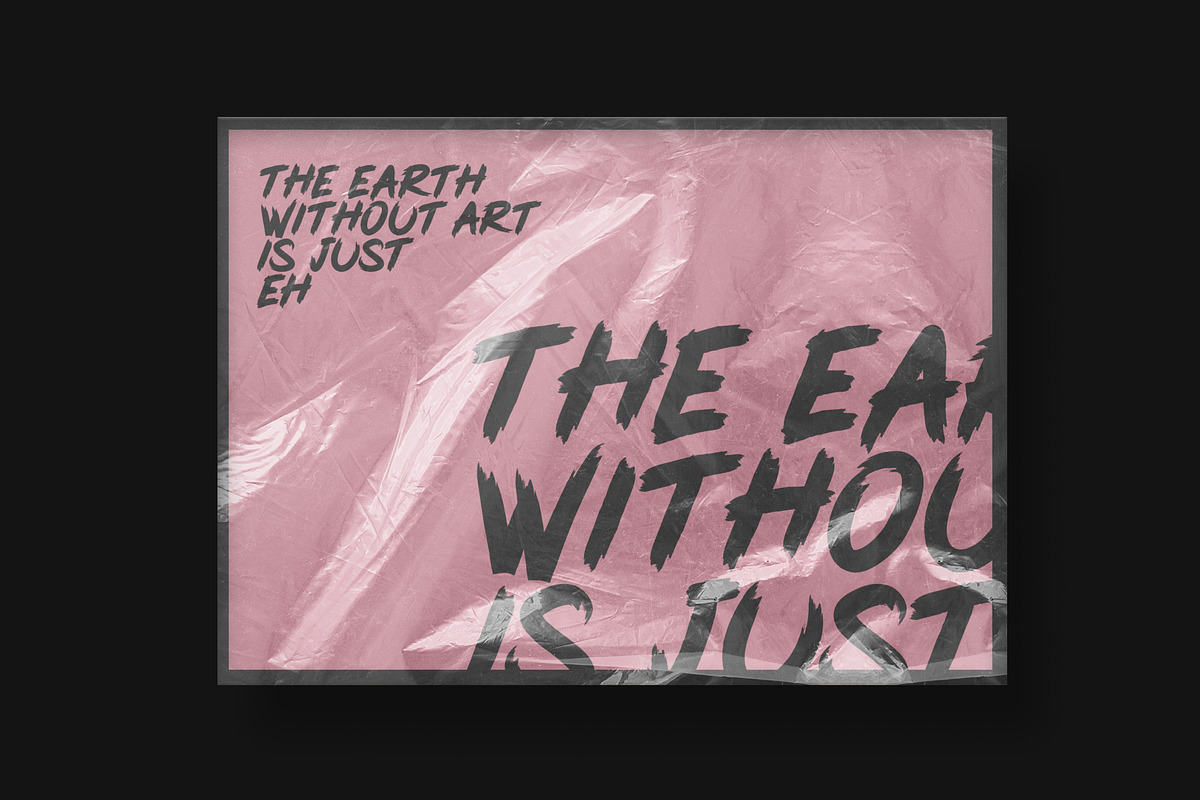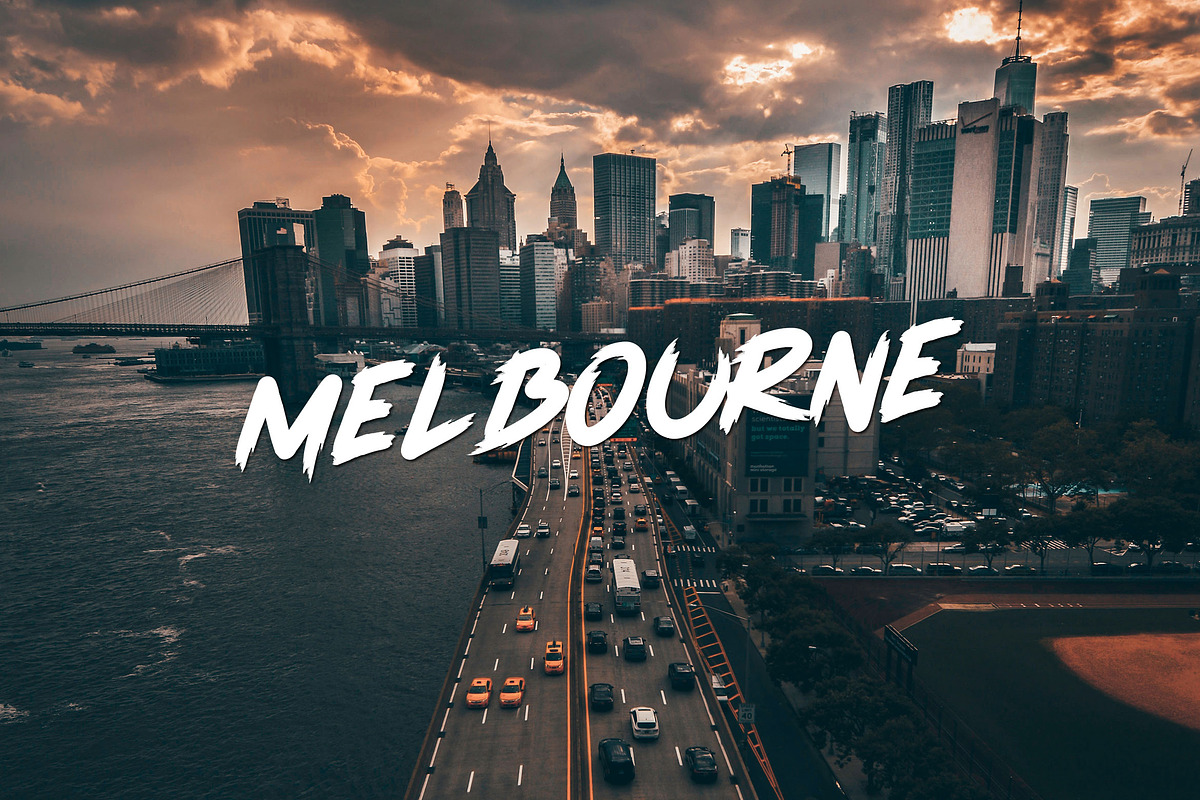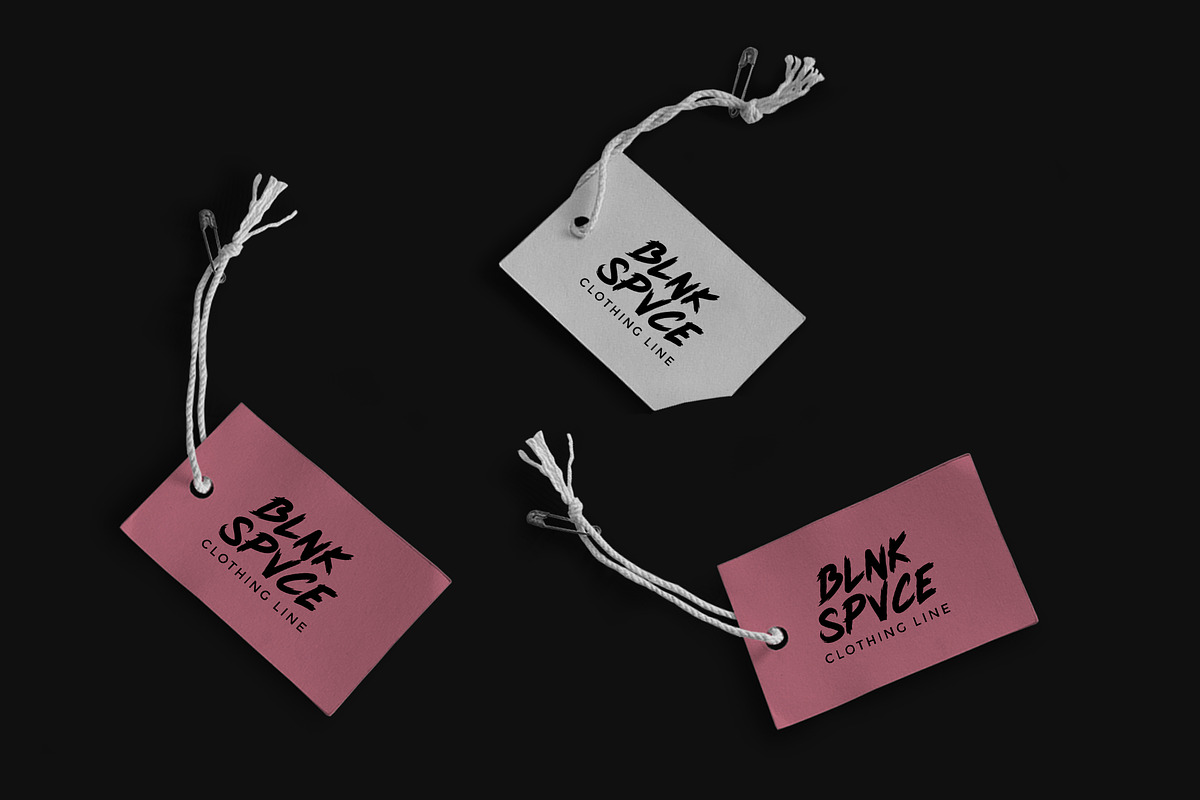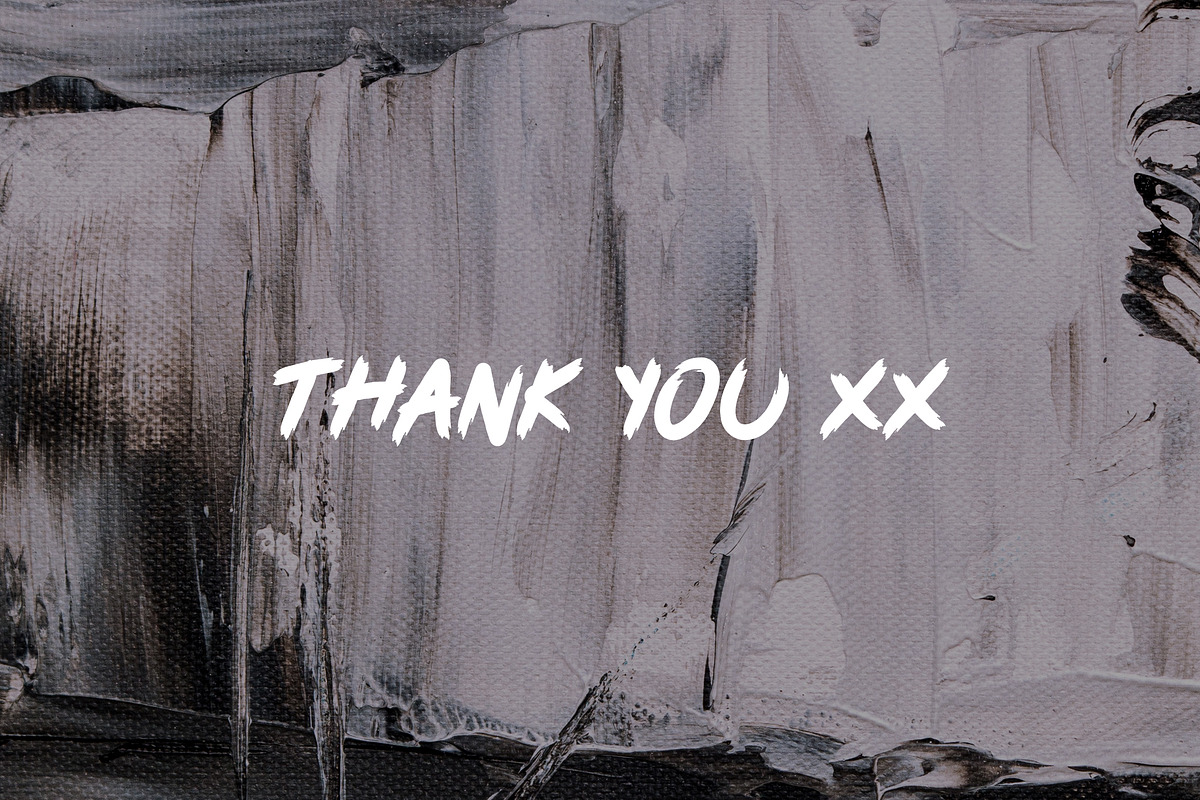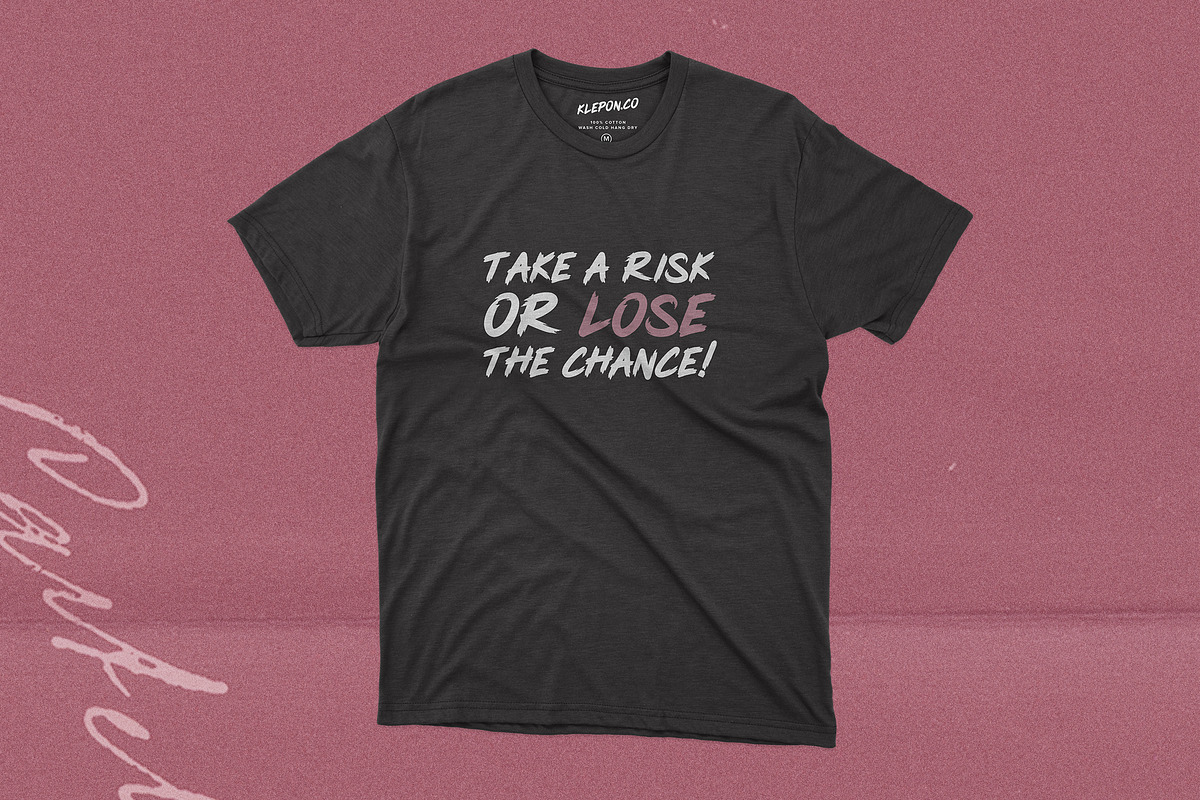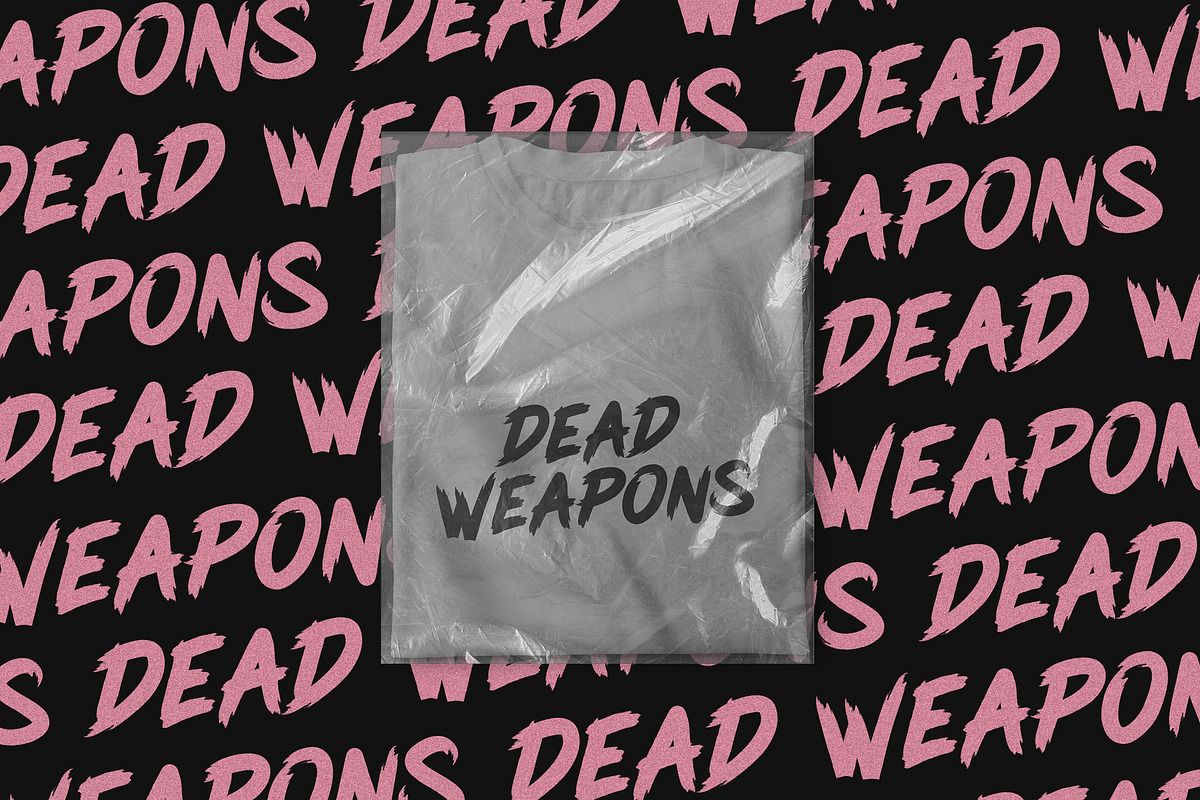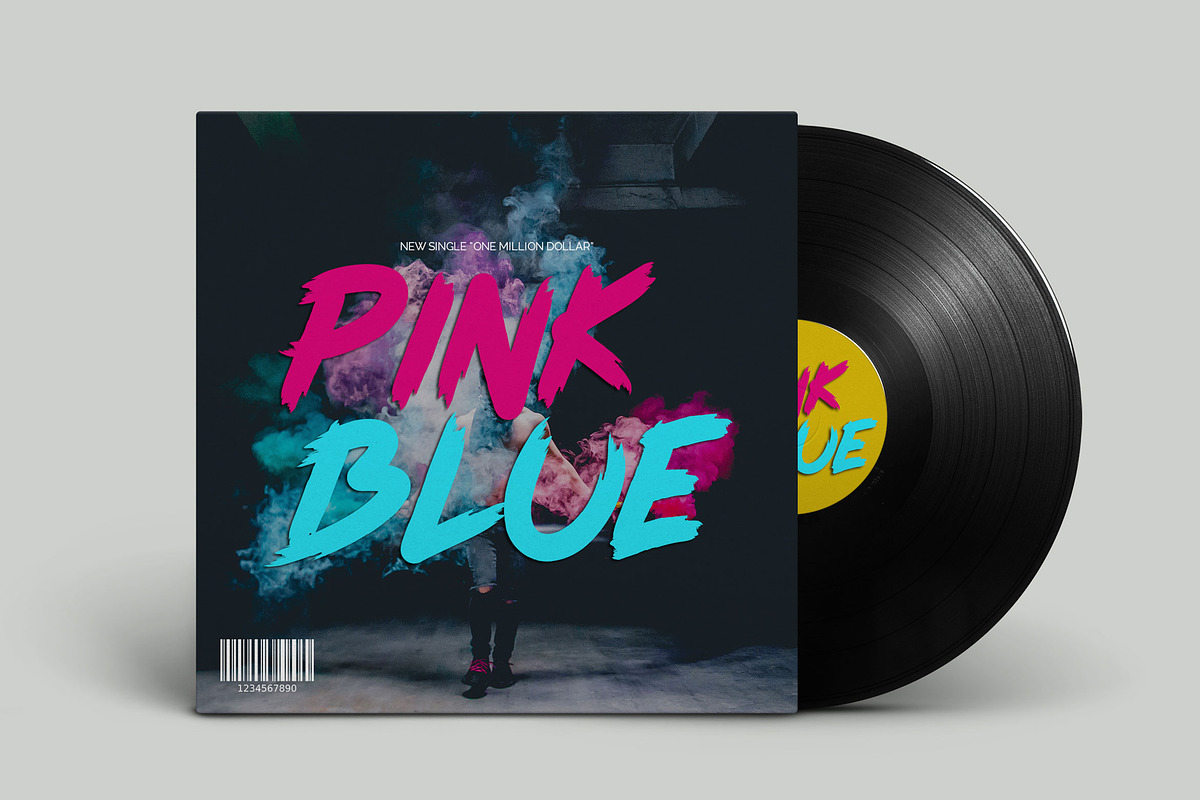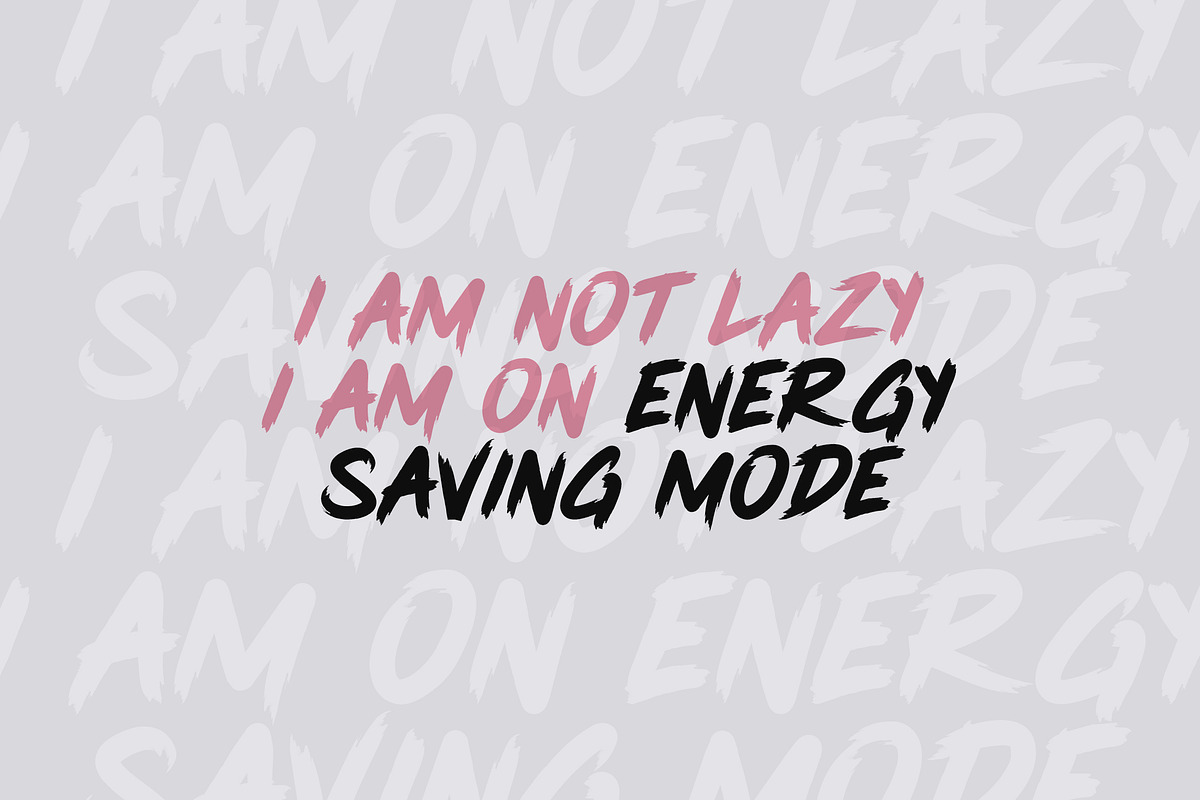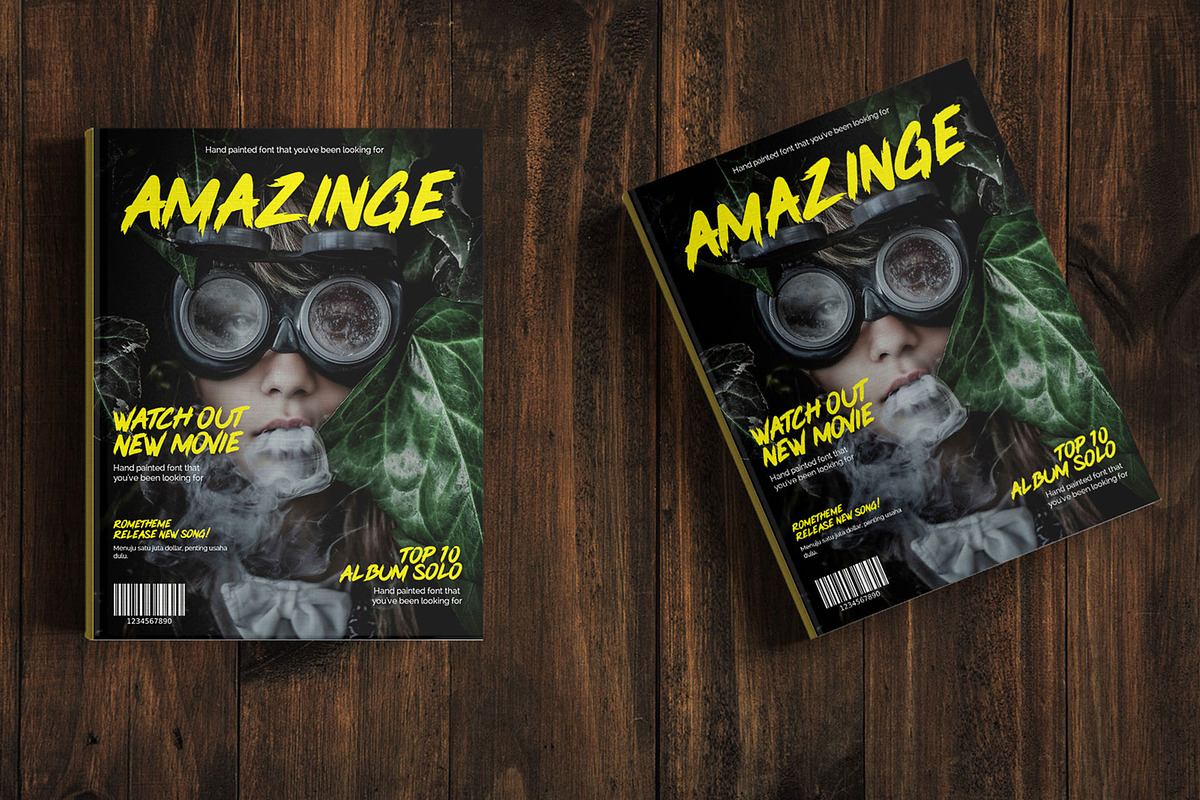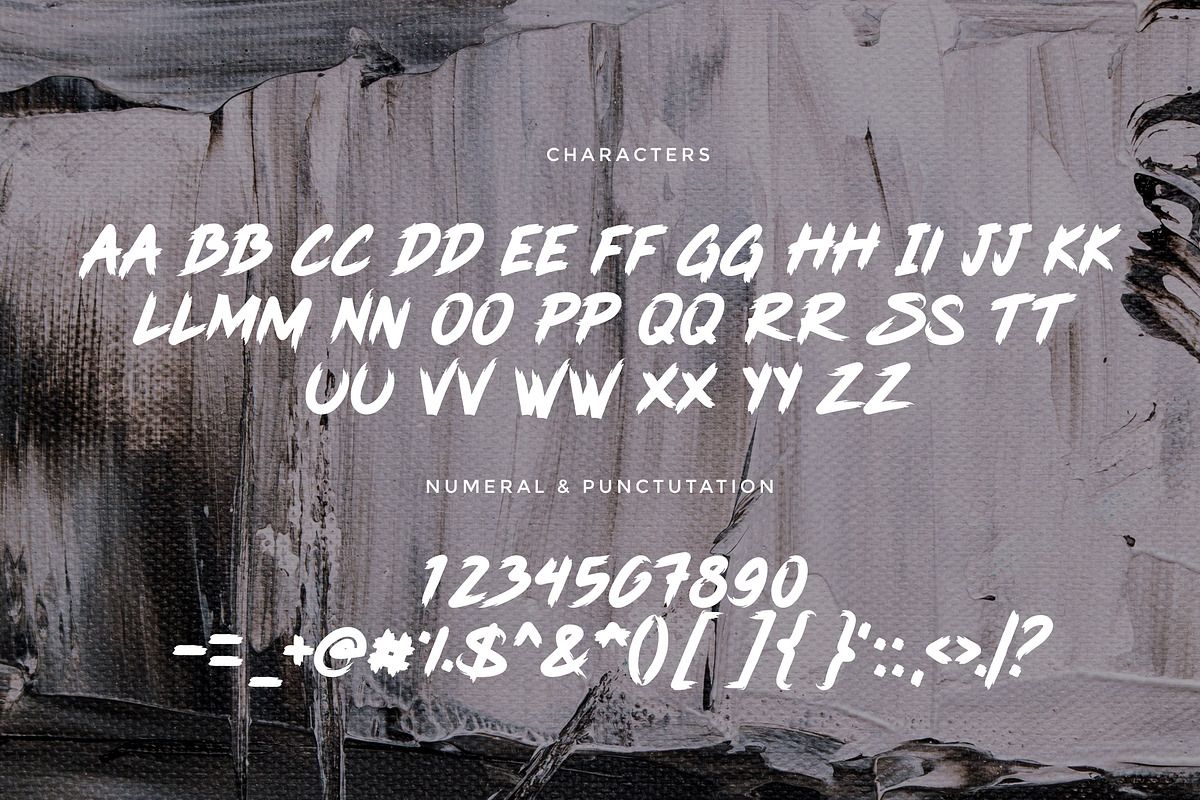
Pink Blue - Brush Display font
Pink Blue is a modern handdrawn font, this font looks elegant, classy, readable, stylish, catchy and easy to use.
Pink Blue Font is the best choice for your professional design projects, including : quotes, album cover, business card, logo, branding, magazines, social media, advertisements, product designs, and many other design project.
The perfect font choice for powerful projects - Social media, Advertisements, product designs, logos, business cards, quotes, album covers.